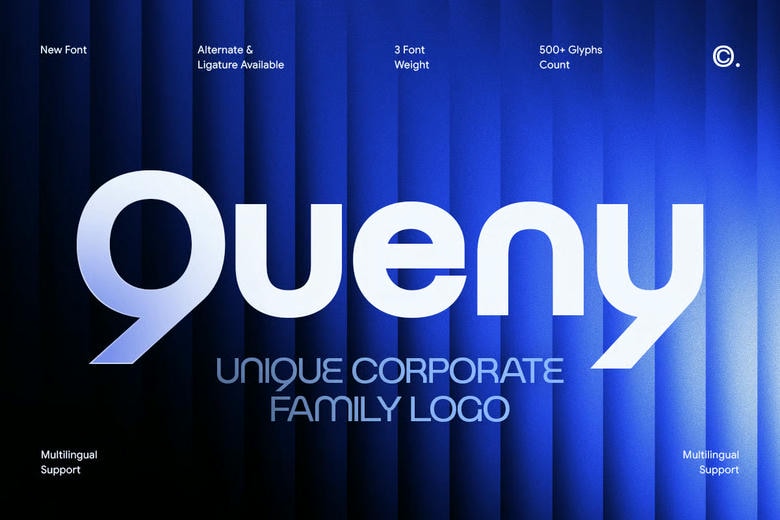
Queny Font
Queny is a corporate logo font family that brings together professionalism, creativity, and a strong visual identity. With its clean letterforms, balanced proportions, and modern look, Queny works well for branding, business logos, editorial layouts, packaging, websites, and other design projects.
Queny combines modern typography with a fresh approach to branding, giving your designs a memorable and polished look. Its flexible family structure makes it easy to use in many settings, while still offering great readability and a professional feel. This makes Queny a good choice for startups, agencies, consulting firms, tech companies, and premium brands.
Queny Logo Font